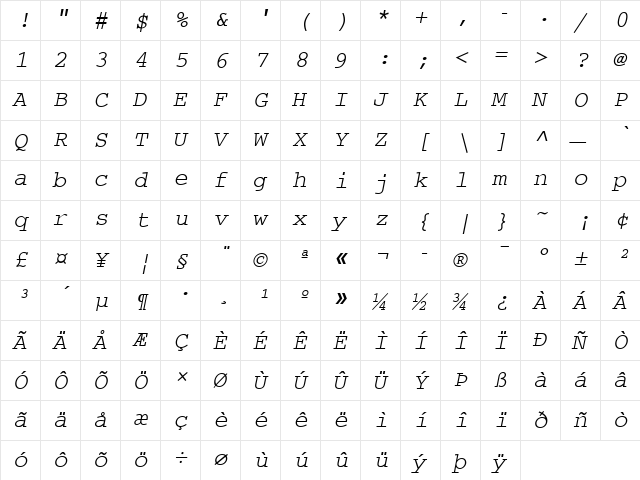
Ethiopia Jiret Slant Regular
Design Context for Ethiopia Jiret Slant Typeface
Ethiopia Jiret Slant takes a measured approach to typography — its balanced proportions and neutral character make it a reliable workhorse for both digital and print work.